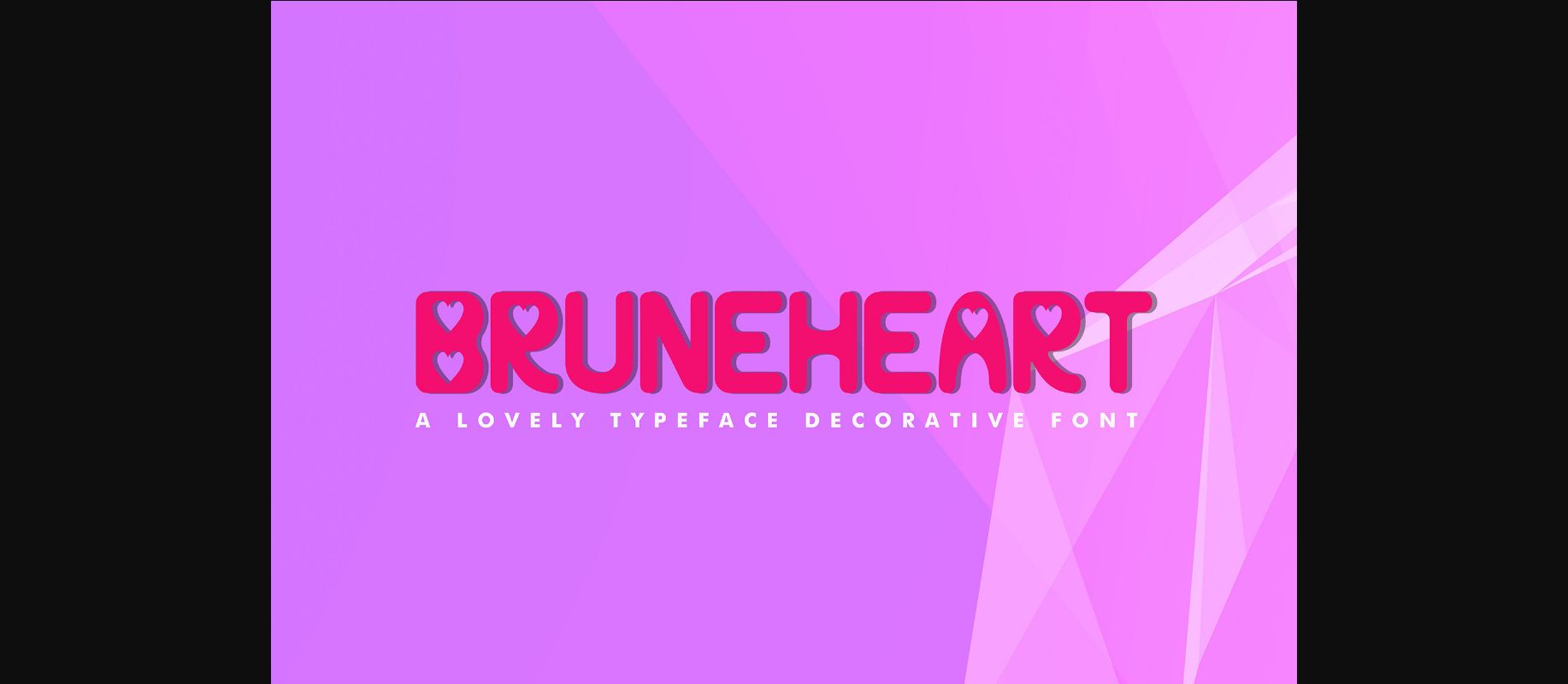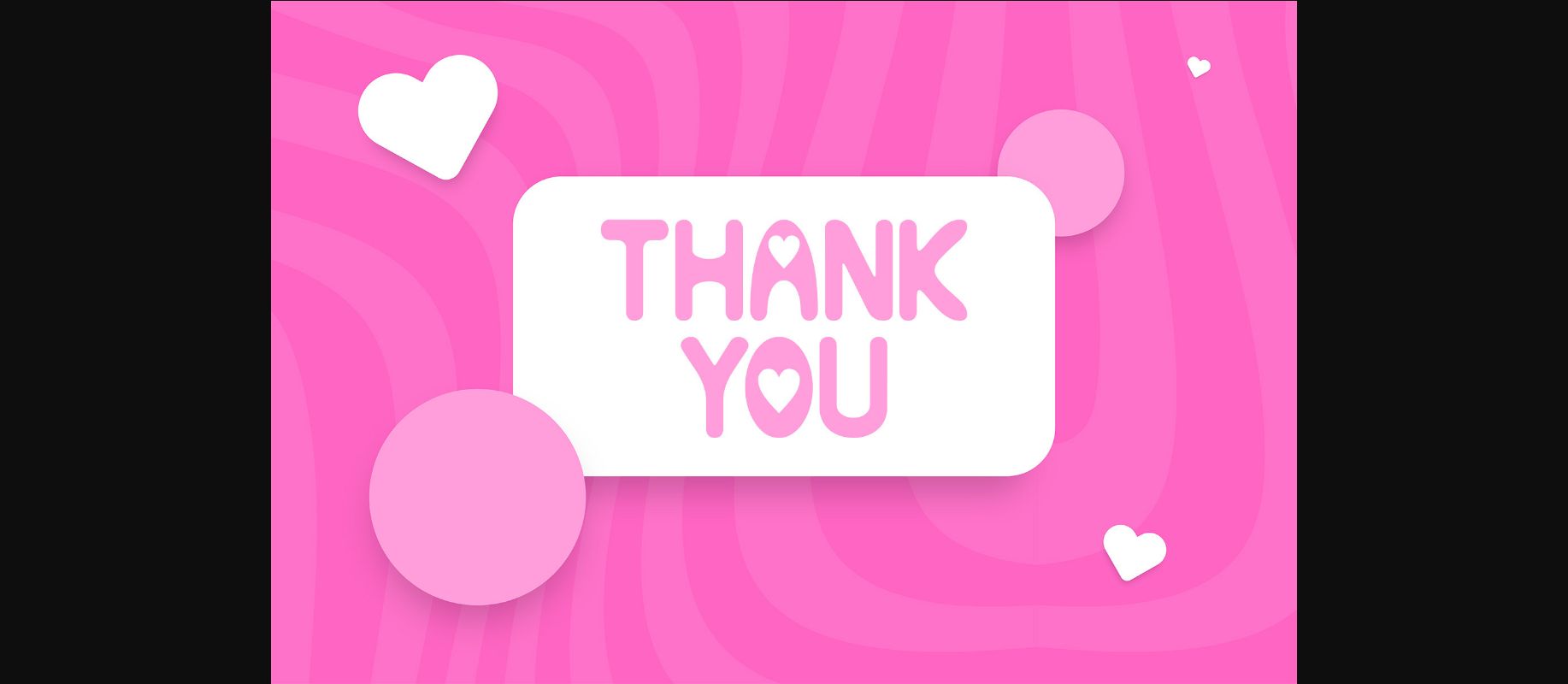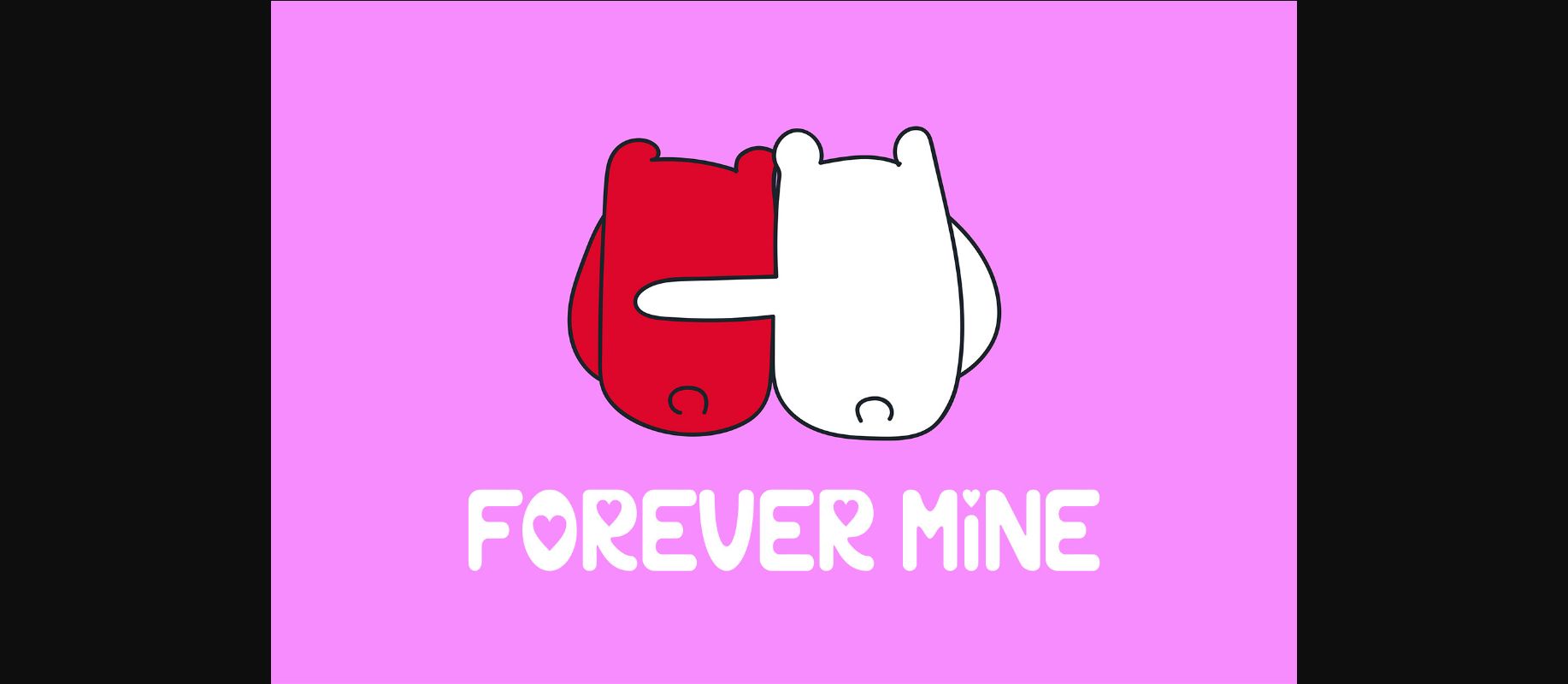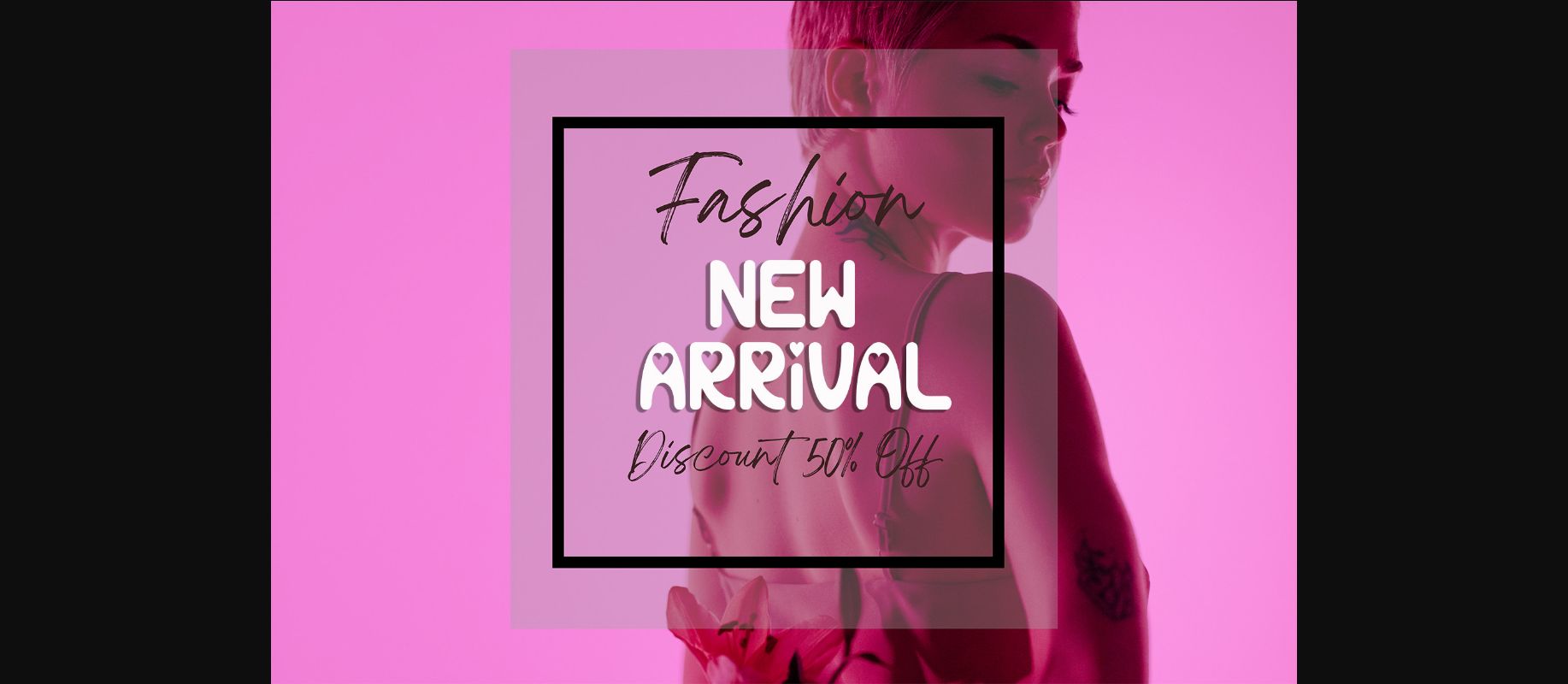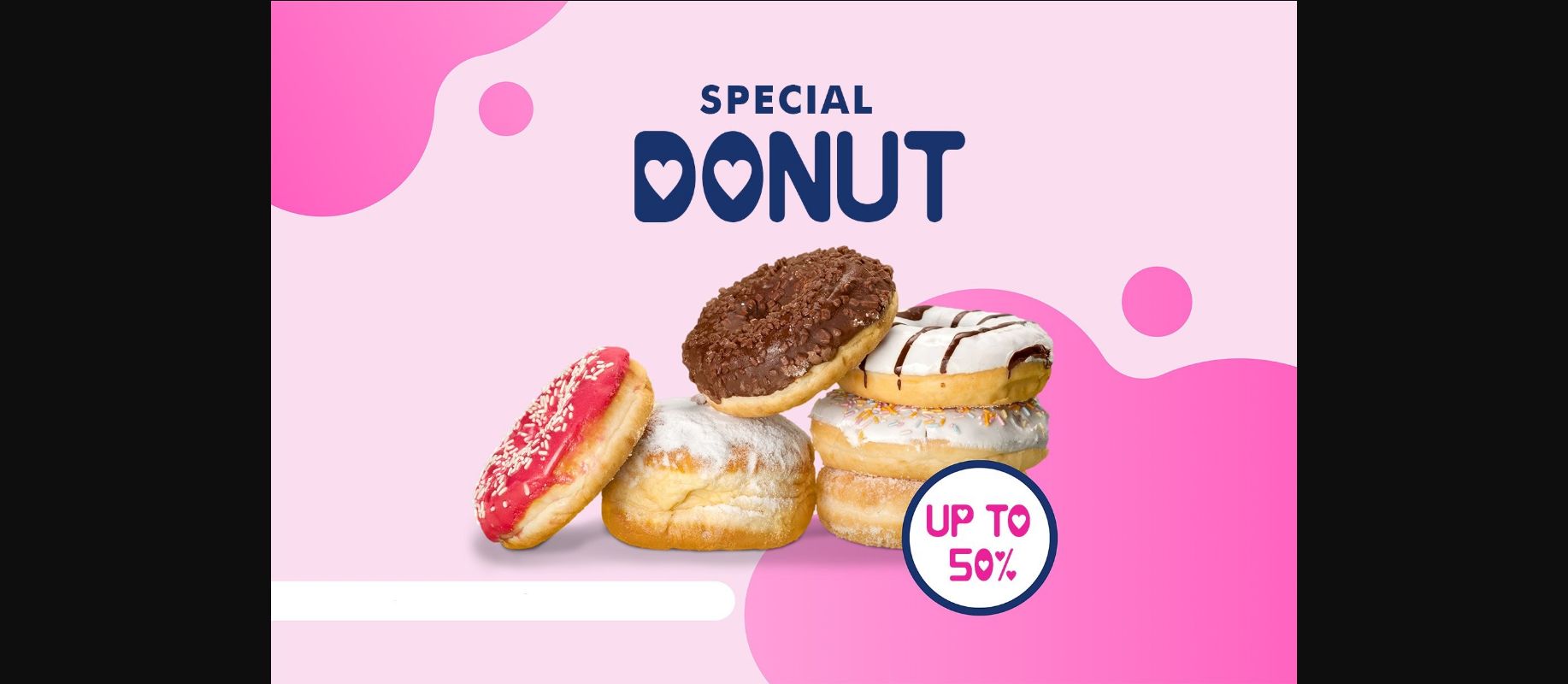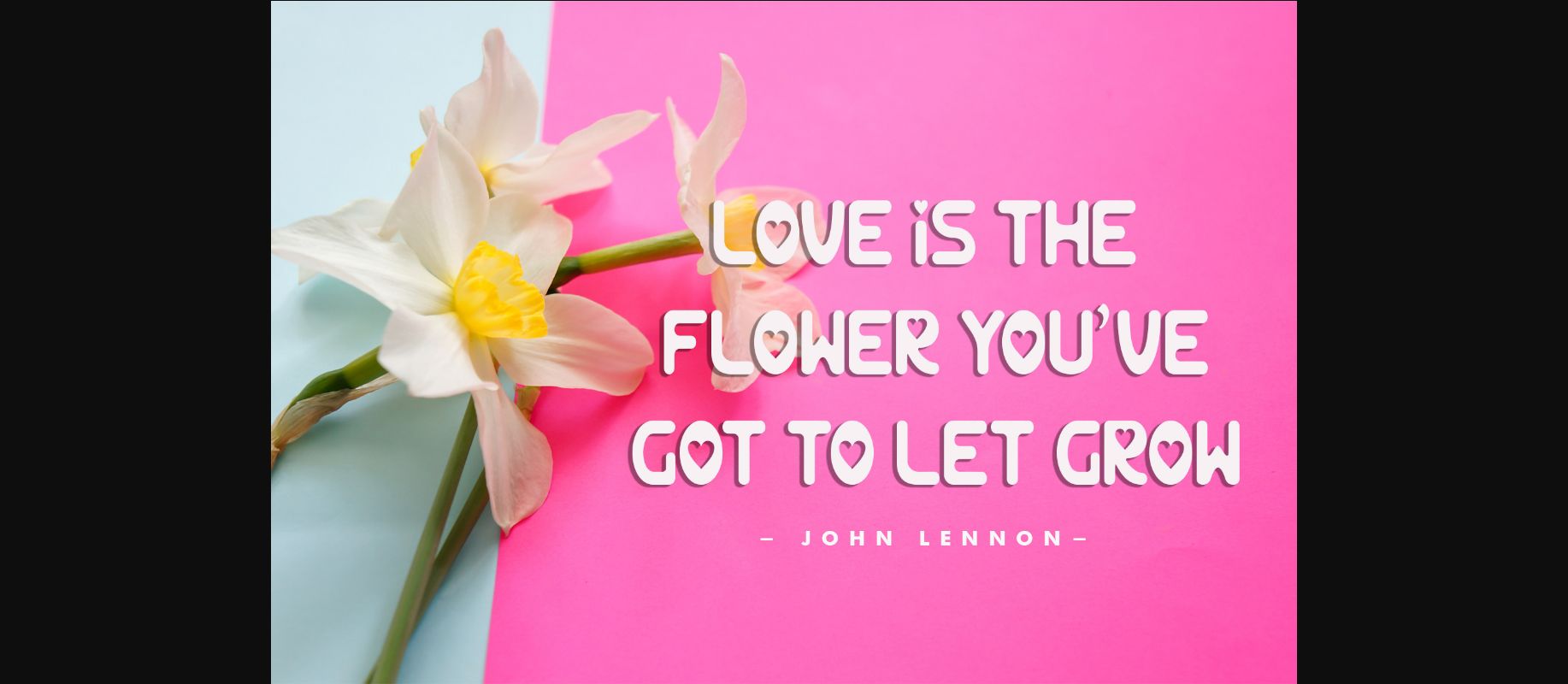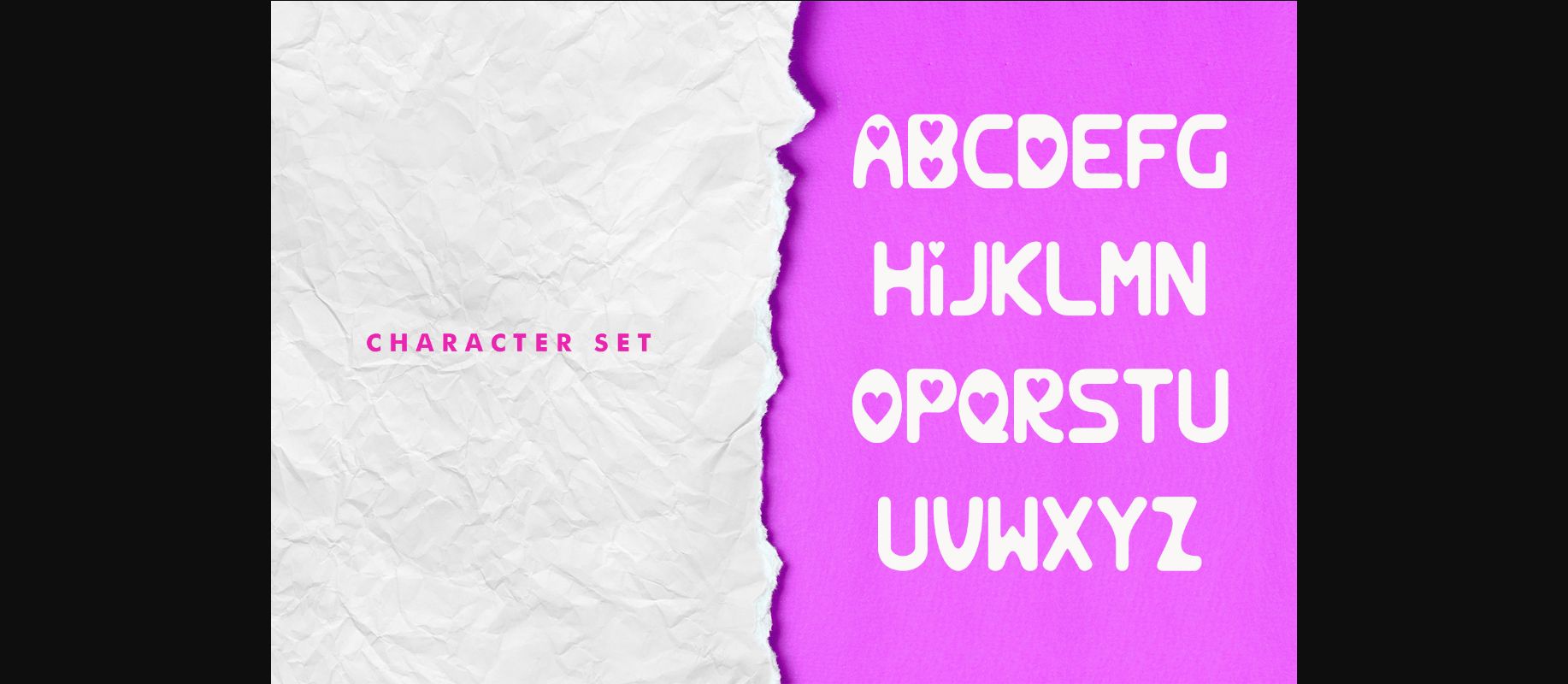
About Bruneheart Font
Bruneheart is a lovely and sweet decorative display font. This original look will appeal to a wide range of crafty ideas, from letterheads and titles to stationery.